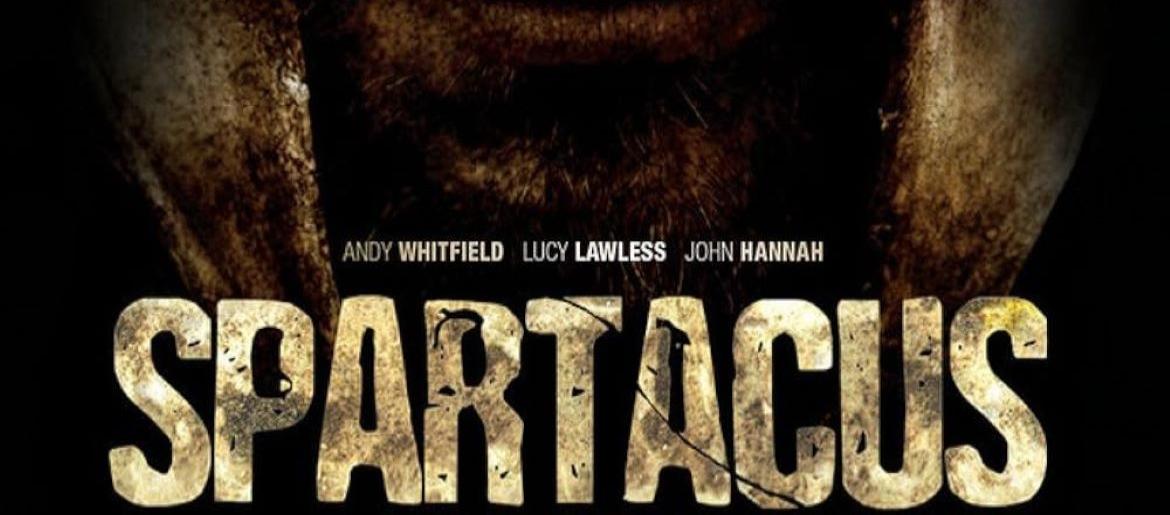
Spartacus Font
The Spartacus font channels the raw strength and heroic intensity of the epic television series. Its bold, weathered lettering and ancient-inspired style echo the show’s themes of rebellion, honor, and gladiatorial combat. This typeface is perfect for dramatic, high-impact designs—whether you’re creating historical graphics, action-themed posters, or event promotions. With its rugged texture and commanding presence, it adds a sense of grit and power to any project. The font used in the Spartacus poster appears to be Cooperative Dirty Bold, a fitting match for the show’s brutal and legendary tone.
(Replica)